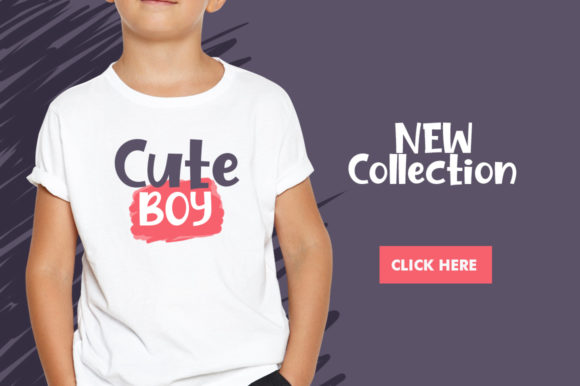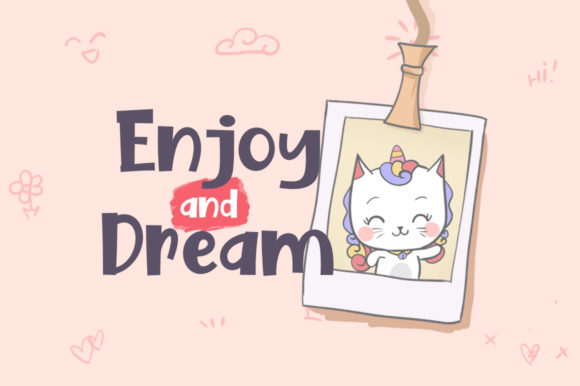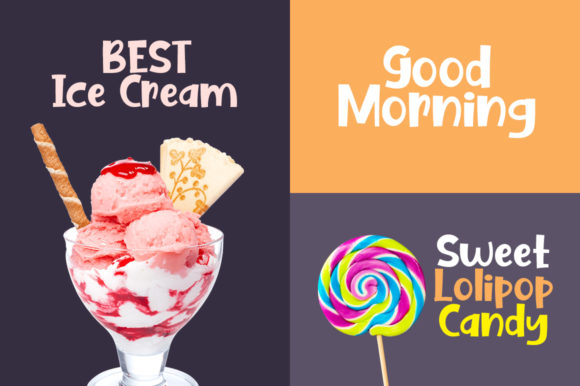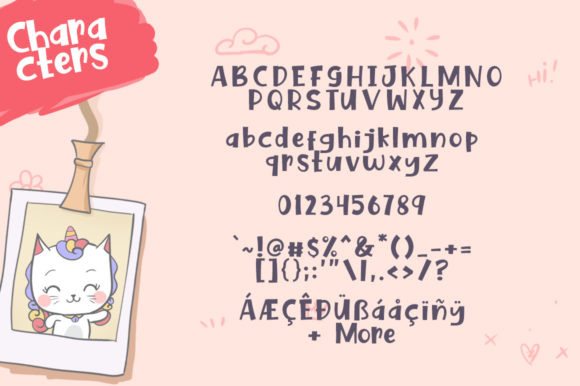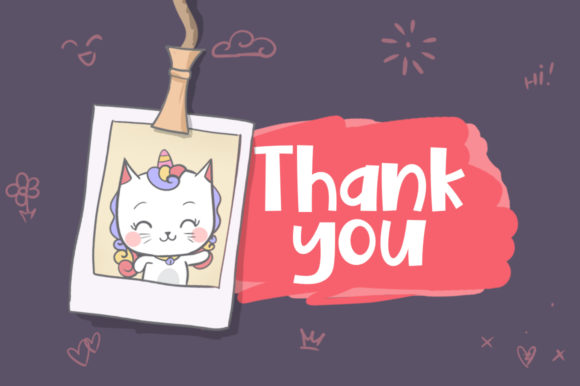
Introducing Fake Unicorn Font: The Ultimate Display Font for Unique Designs
Are you tired of using the same old fonts for your designs? Look no further! Fake Unicorn Font is here to revolutionize your creative projects with its bold and cool display style. This stunning font is perfect for designers and crafters who want to add a touch of magic to their work.
What is Fake Unicorn Font?
Fake Unicorn Font is a modern display font that is designed to make your designs stand out. Its unique and bold style is perfect for creating eye-catching titles, headings, and captions. The font features a distinctive unicorn-inspired design that adds a playful and whimsical touch to any project.
Key Features of Fake Unicorn Font
- Bold and Cool Design: Fake Unicorn Font boasts a bold and cool design that is sure to grab attention.
- Unique Style: The font’s unicorn-inspired design makes it perfect for projects that require a touch of magic and whimsy.
- Display Font: Fake Unicorn Font is specifically designed as a display font, making it ideal for titles, headings, and captions.
Who Can Benefit from Using Fake Unicorn Font?
Fake Unicorn Font is perfect for a wide range of designers and crafters, including:
- Graphic Designers: Add a touch of magic to your brochures, posters, and flyers with Fake Unicorn Font.
- Crafters: Use Fake Unicorn Font to create unique and eye-catching titles for your handmade products, such as jewelry, candles, and crafts.
- Digital Artists: Add a bold and cool touch to your digital art with Fake Unicorn Font.
- Small Business Owners: Use Fake Unicorn Font to create eye-catching signage, business cards, and marketing materials.
Tips and Tricks for Using Fake Unicorn Font
- Use it Sparingly: Fake Unicorn Font is a bold font, so use it sparingly to avoid overwhelming your design.
- Pair it with Other Fonts: Pair Fake Unicorn Font with other fonts to create a unique and visually appealing design.